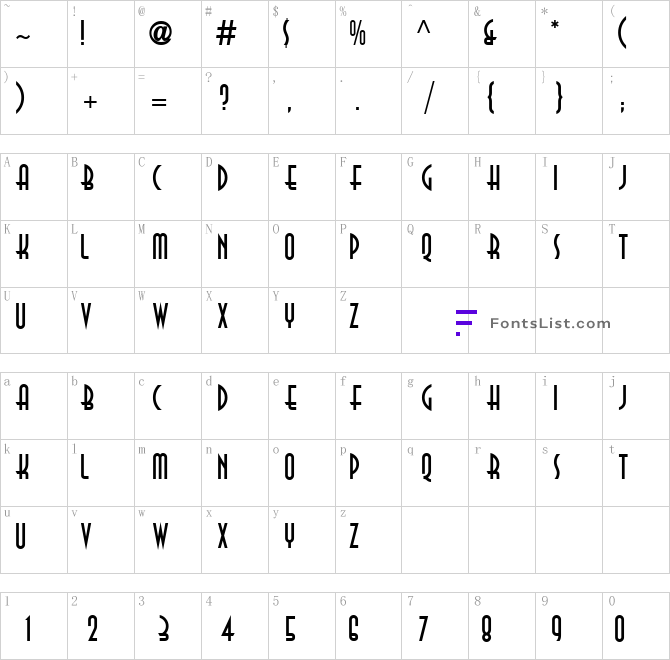
- Font Name:Anna ICG
Anna-ICG.ttf is a very beautiful artistic font, Anna-ICG.ttf is widely used in the design and printing of various books and pictures,Anna-ICG.ttf has a strong visual impact,Anna-ICG.ttf is a commonly used font in newspapers, magazines and books, and is used in posters, e-commerce Poster design, store design, logo design, font design and other fields.Anna-ICG.